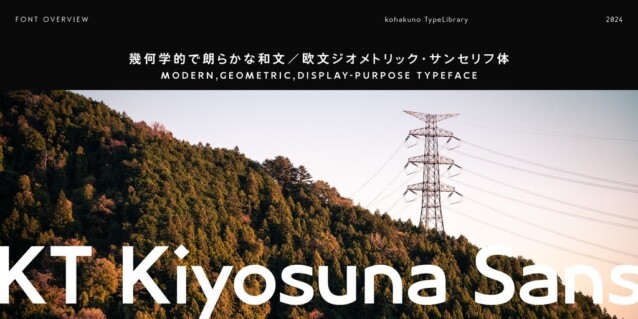
KT Kiyosuna Sans Font
KT Kiyosuna Sans Font is a commanding yet minimalistic font that effortlessly adapts to any design context. This font is a free and open-source Sans-Serif font family. Smooth arching strokes and diamond-shaped dots in the alphabet and Japanese Kana are combined with modern Japanese Kanji from Zen Kaku Gothic font, creating a low-contrast and clean typography. Version 1.0 was released on January 1, 2024, offering 2 font weights: Light and Bold. The range and weights of fonts will be expanded and quality will be improved through